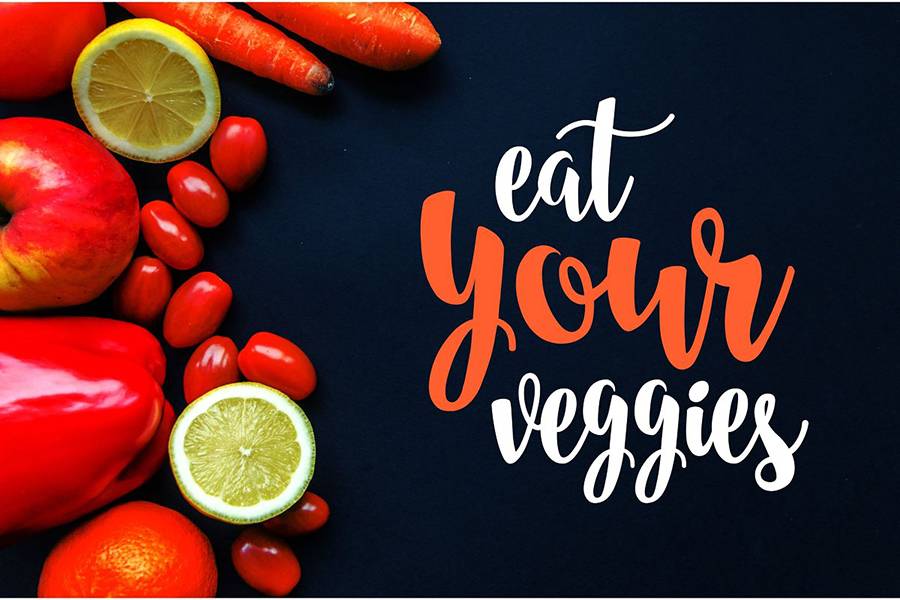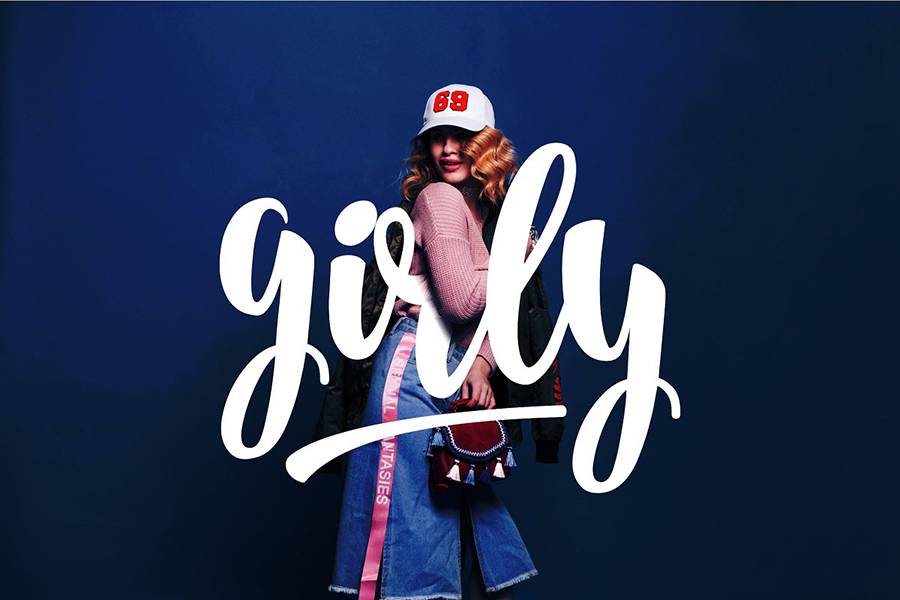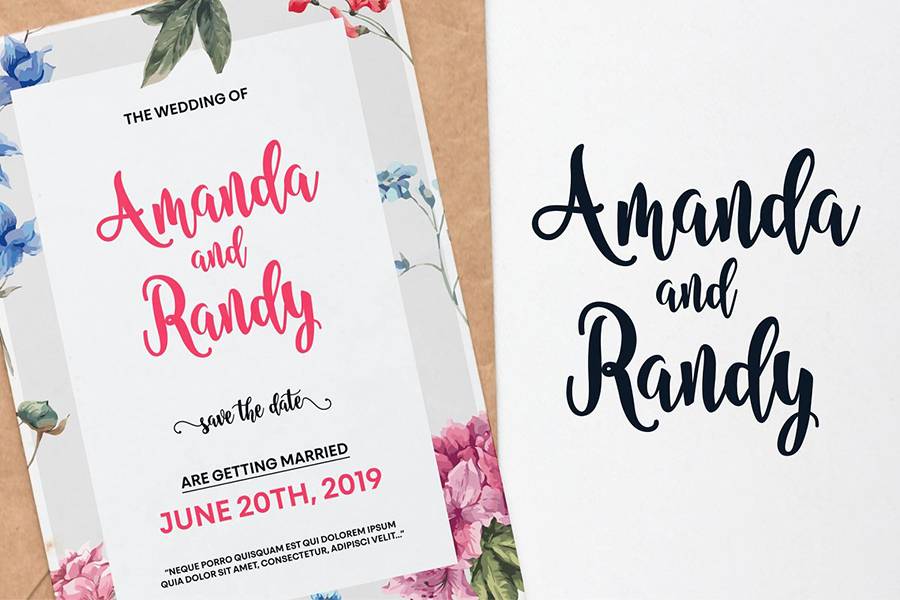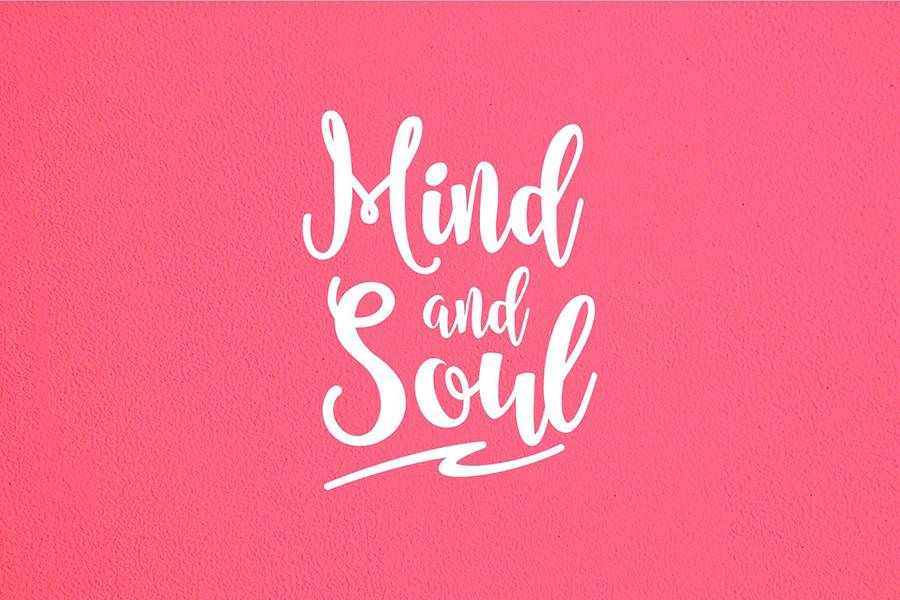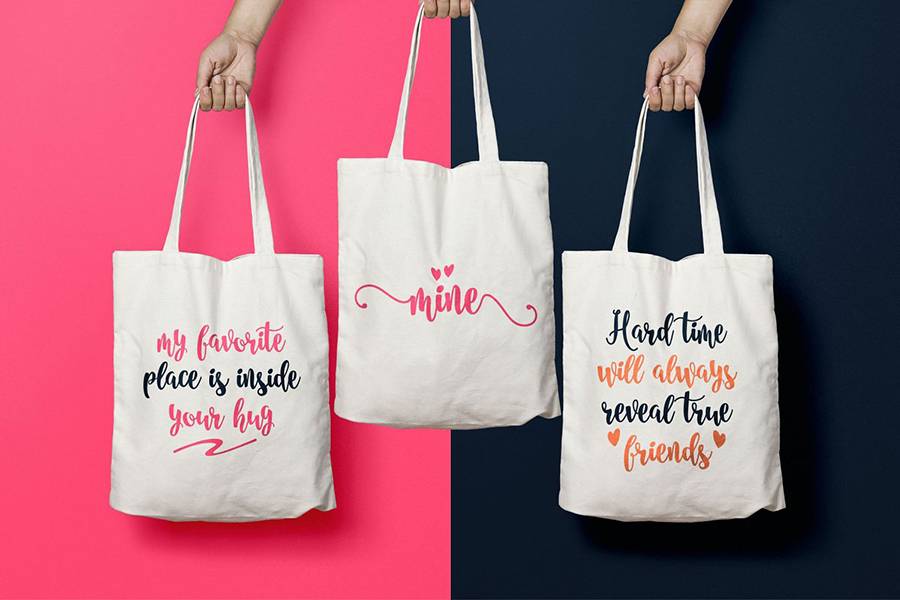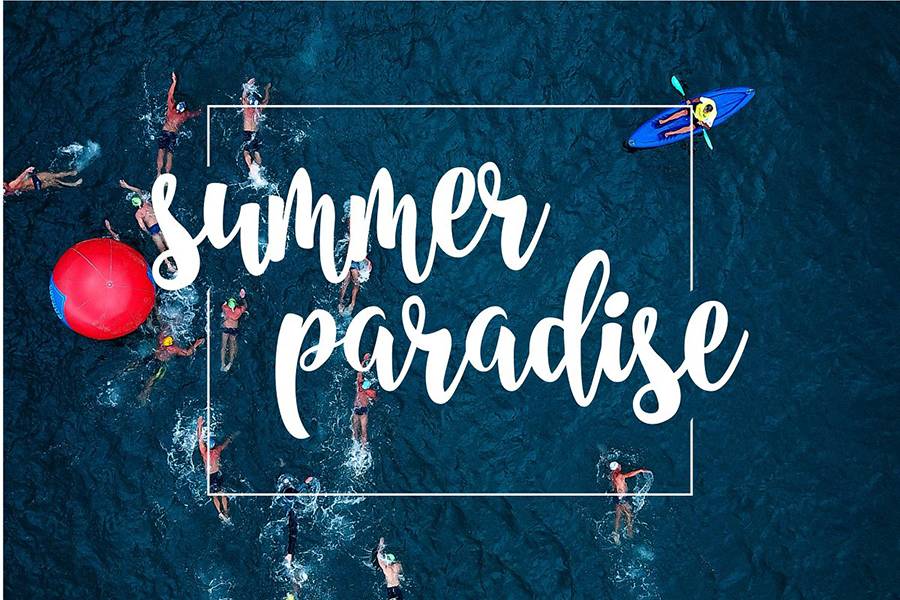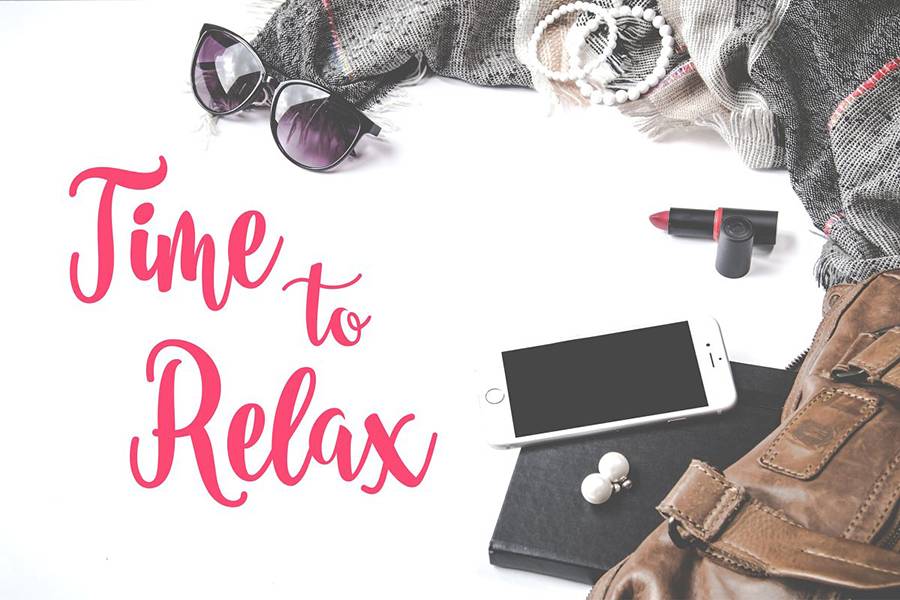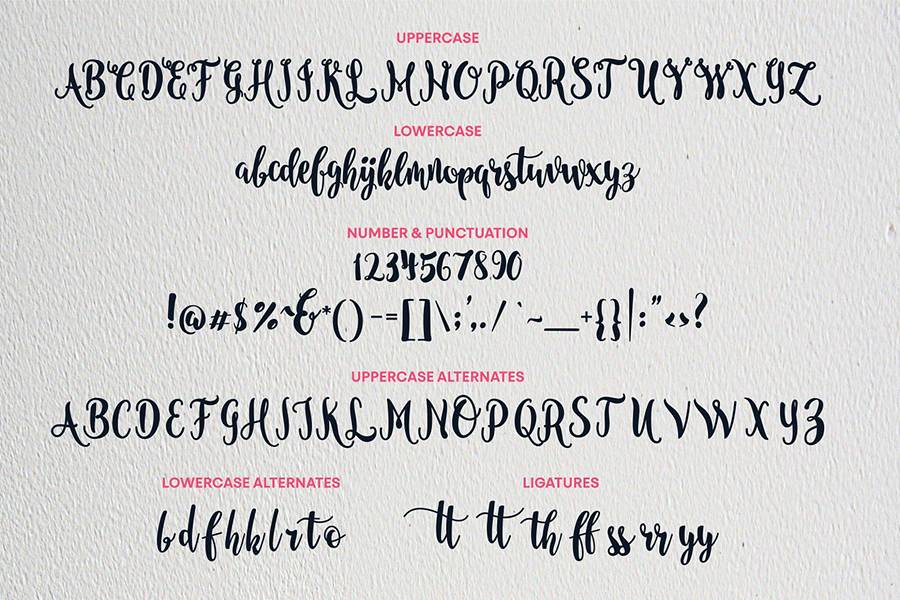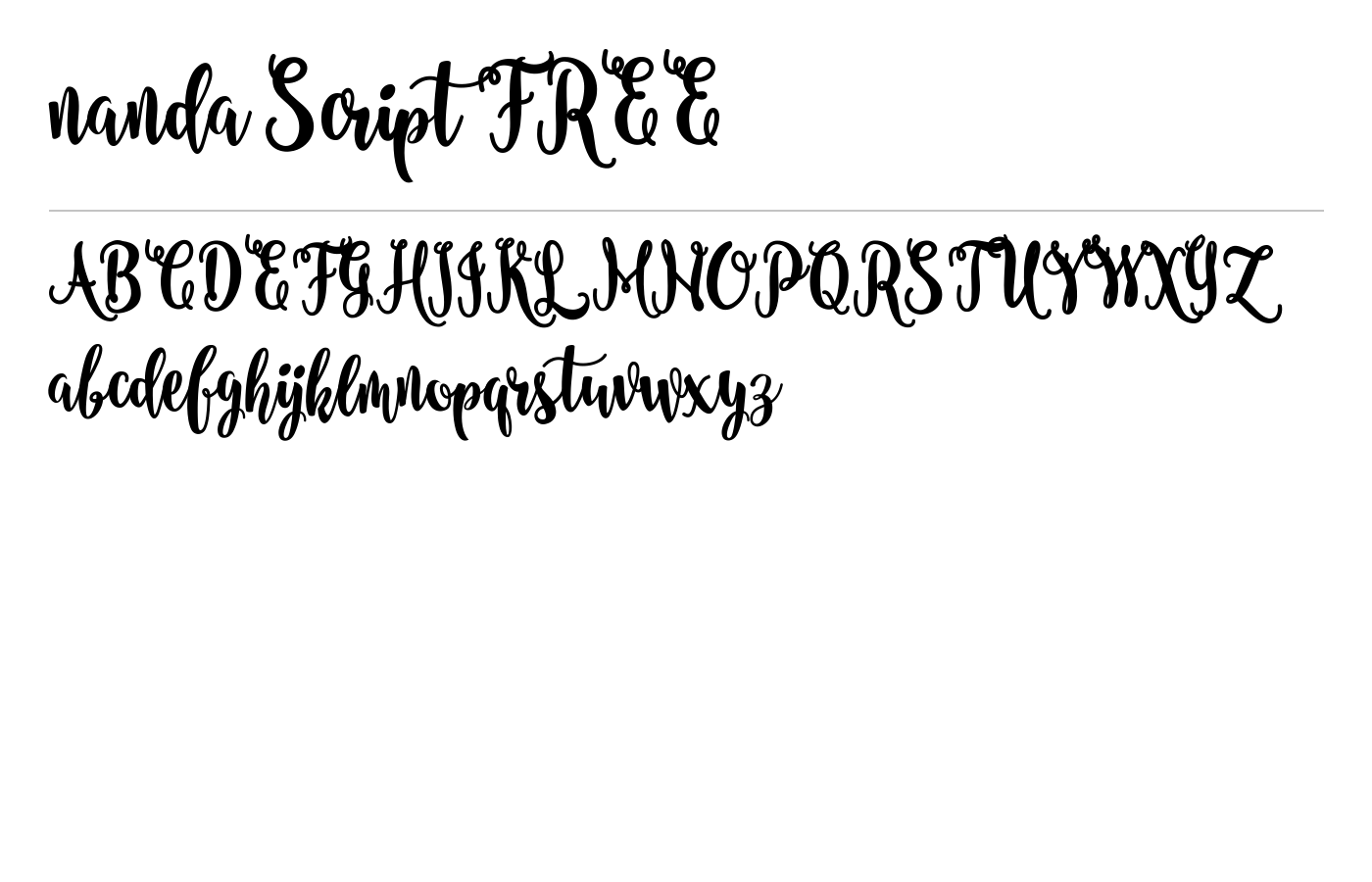
Nanda Script Demo is a lively, decorative script font featuring bold, flowing strokes with playful loops and swashes that give it a charming, handcrafted feel. Its high contrast and intricate letterforms make it ideal for adding a whimsical, elegant touch to invitations, branding, and creative projects where personality and flair are key. This font shines in headlines and logos, especially where a unique, artistic vibe is desired.